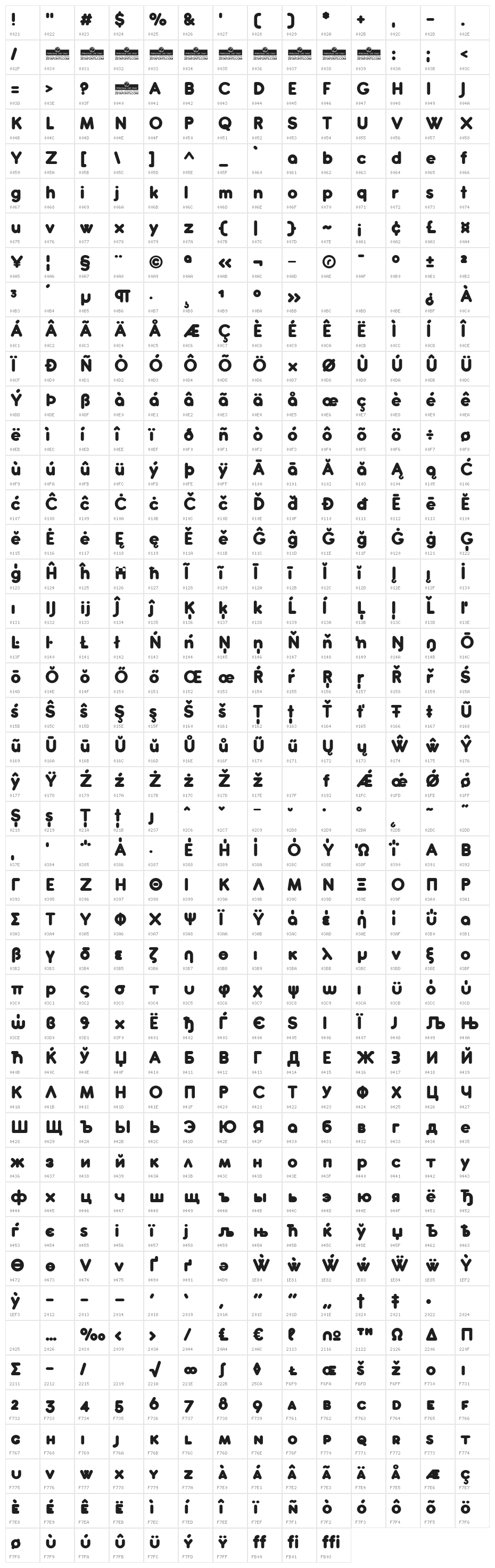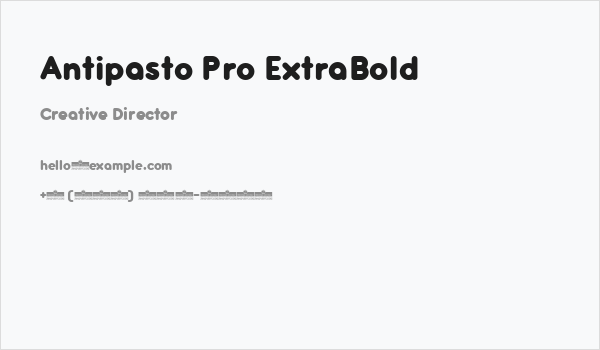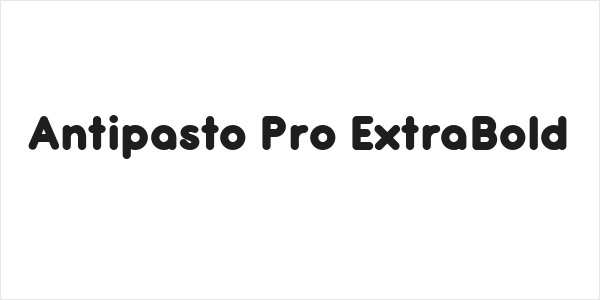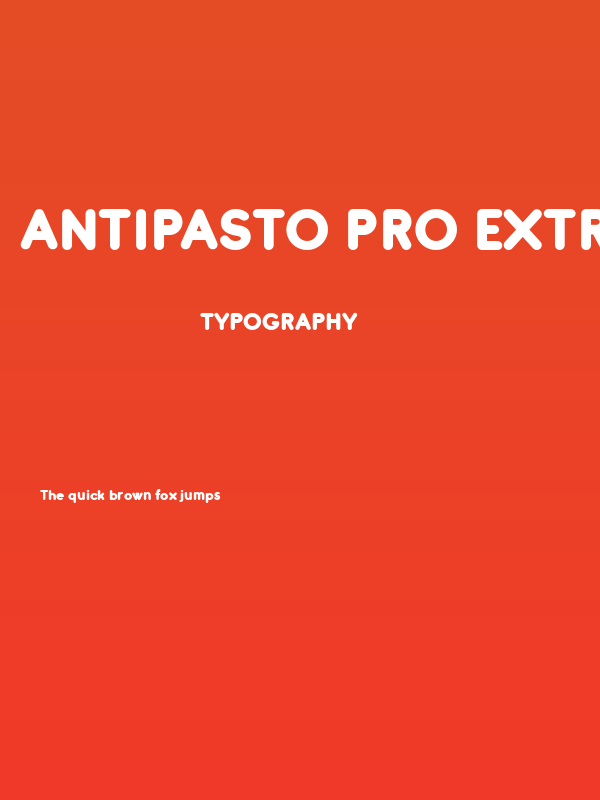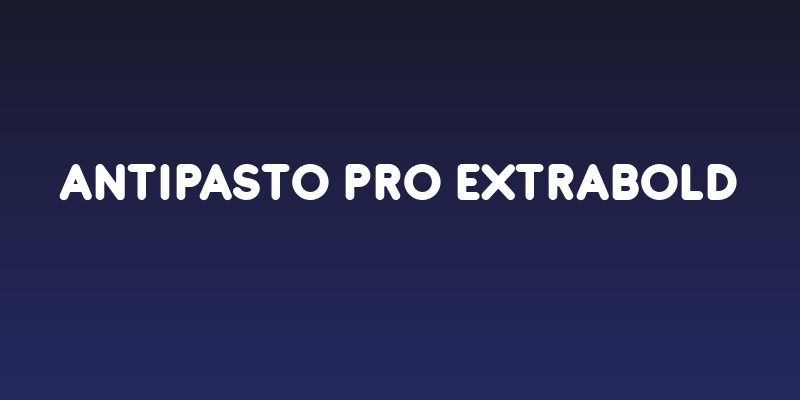
Antipasto Pro ExtraBold Font
Antipasto Pro ExtraBold Description
This typeface features a bold and rounded design, characterized by its thick, uniform strokes and smooth curves. The letters are evenly spaced, creating a harmonious and balanced appearance. The uppercase and lowercase letters maintain a consistent style, with rounded edges that give a friendly and approachable feel. The numerals and special characters are designed to match the overall aesthetic, ensuring visual coherence across all elements. This font's boldness makes it highly legible and impactful, suitable for various design applications where a strong, modern presence is desired.
Use CaseHeadlines, Logos, Branding
Proposed ProjectsIdeal for branding, advertising, packaging, and signage projects that require a modern and approachable look.